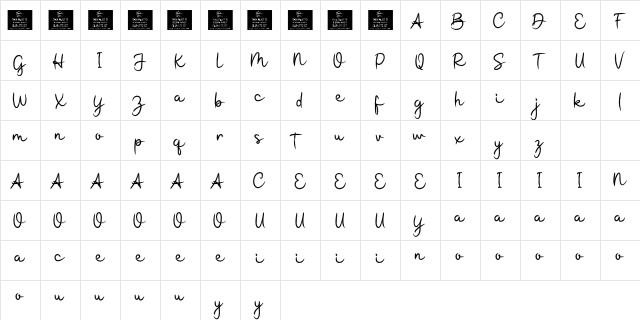
Sanity Sanity
Design Context for Sanity Typeface
Sanity is a composed and adaptable typeface that performs quietly and consistently across a wide range of design contexts.